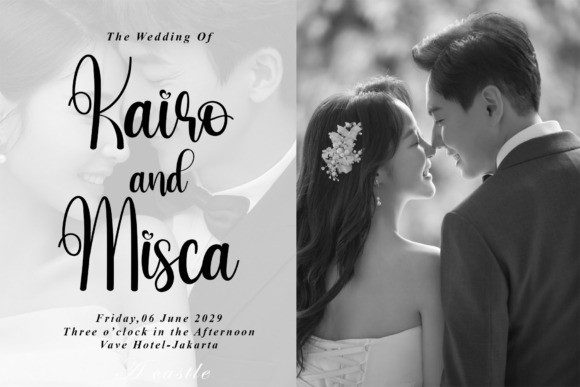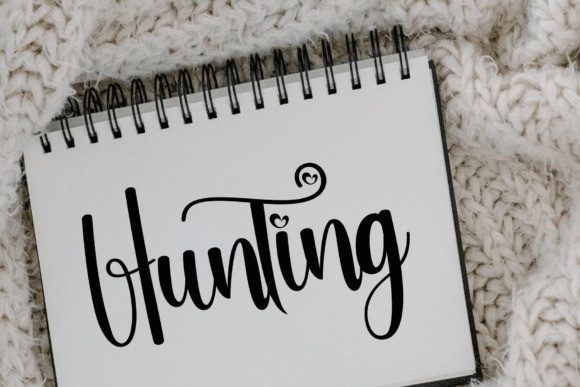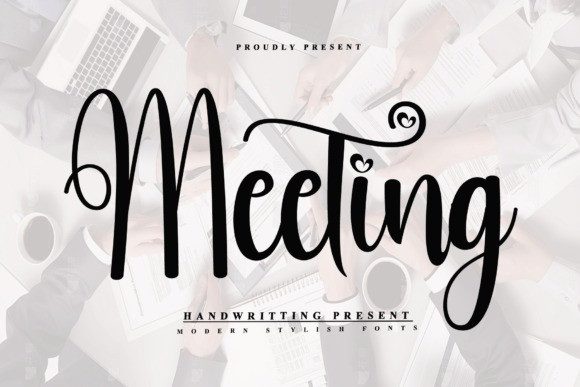
Meeting Script Typeface
Meeting Script Typeface is a graceful and modern handwritten script font that combines professionalism with a touch of romance. Its flowing lines, heart-shaped swashes, and smooth curves make it ideal for everything from business branding to wedding invitations. Whether you’re designing logos, social posts, or stationery, Meeting adds an elegant personal touch with charm and warmth.